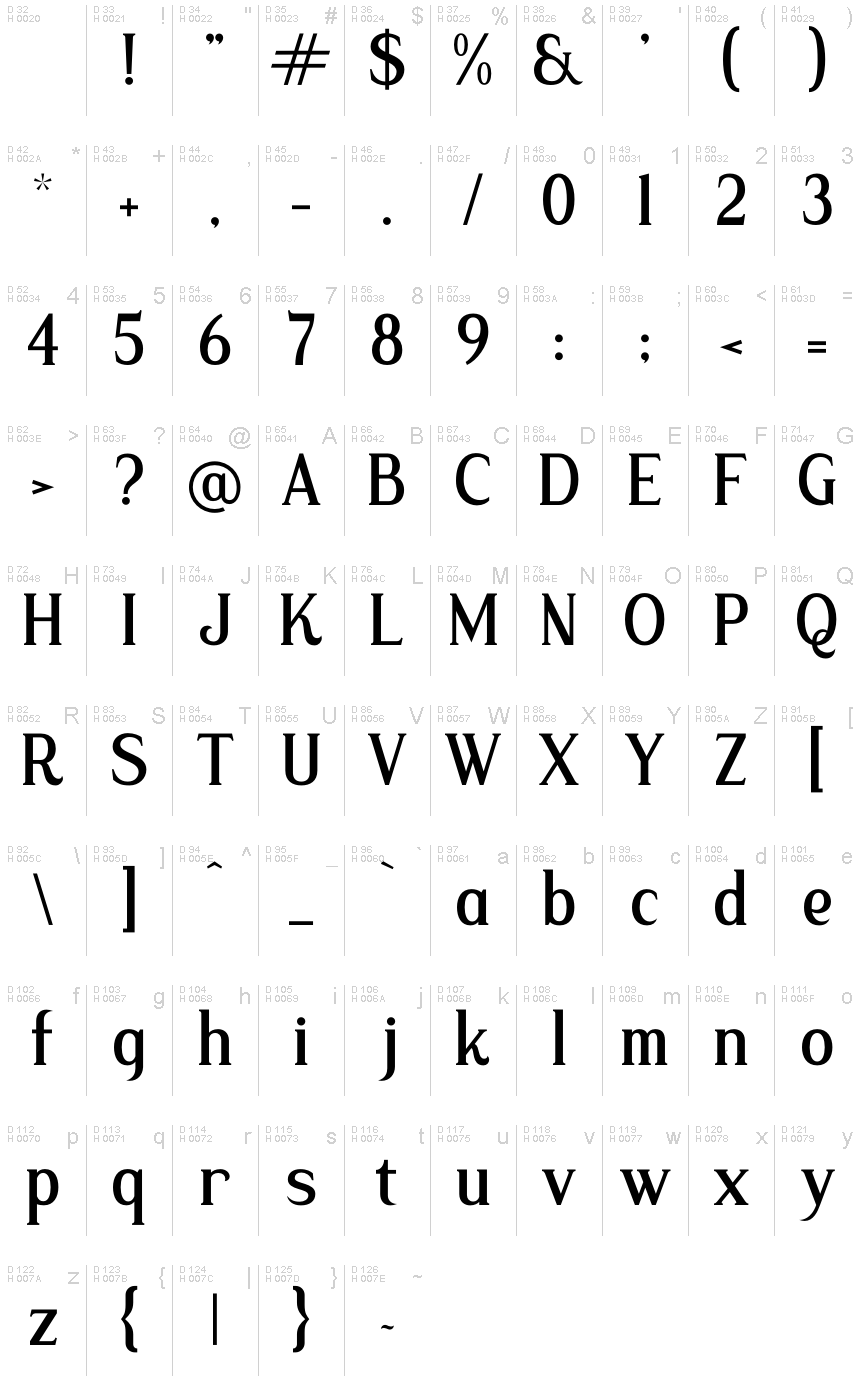
Malffide
Malffide, a captivating serif font crafted by Storytype Studio, exudes a timeless elegance with its refined strokes and impeccable balance. This font's distinctive features, including its subtle serifs and harmonious letter shapes, create a visually striking impression that evokes a sense of sophistication and authority.
Malffide's versatility shines through, making it a compelling choice for a wide range of design applications, from editorial layouts to branding endeavors. Its timeless aesthetic and exceptional legibility ensure Malffide's ability to elevate the visual impact of any project, whether in print or digital mediums.